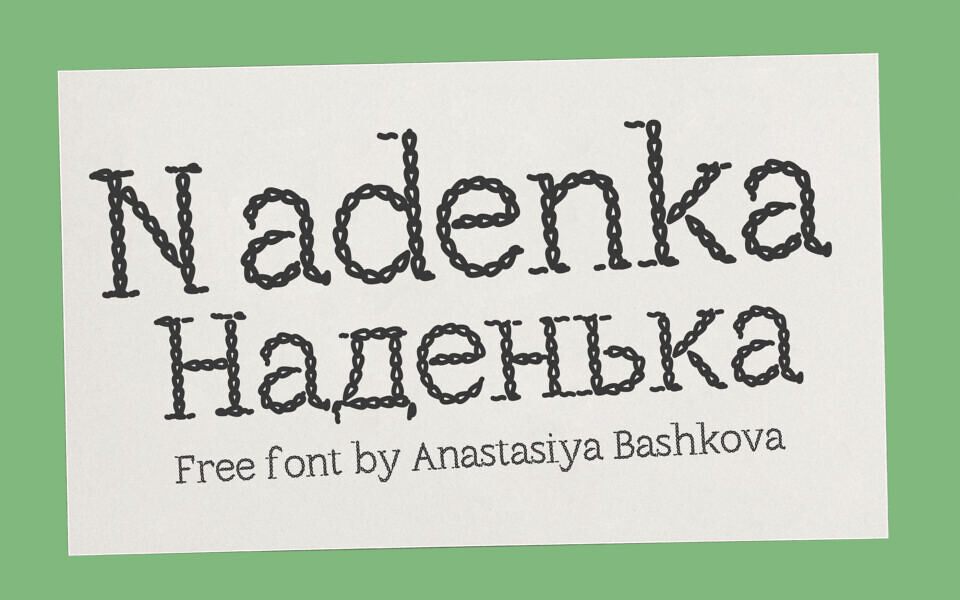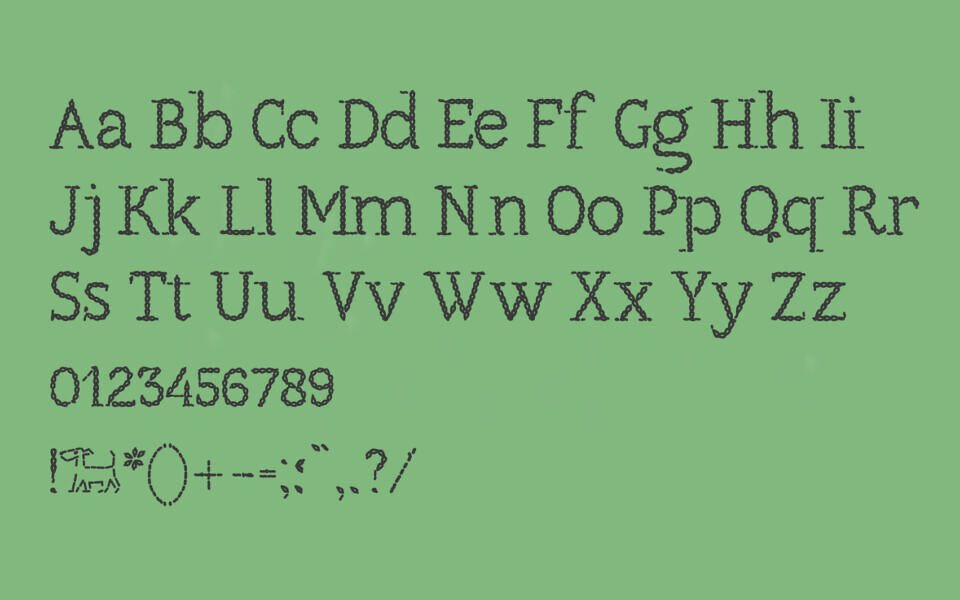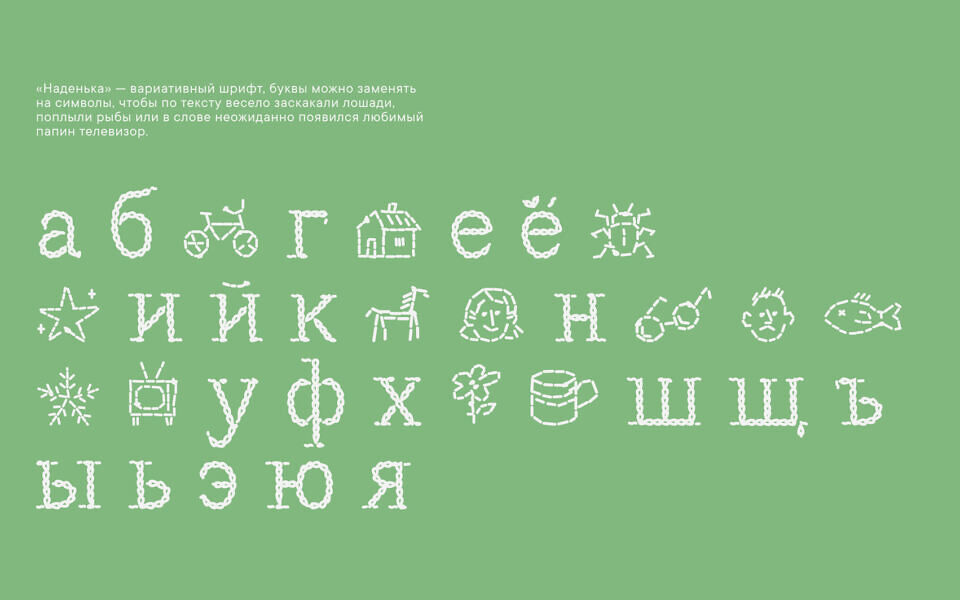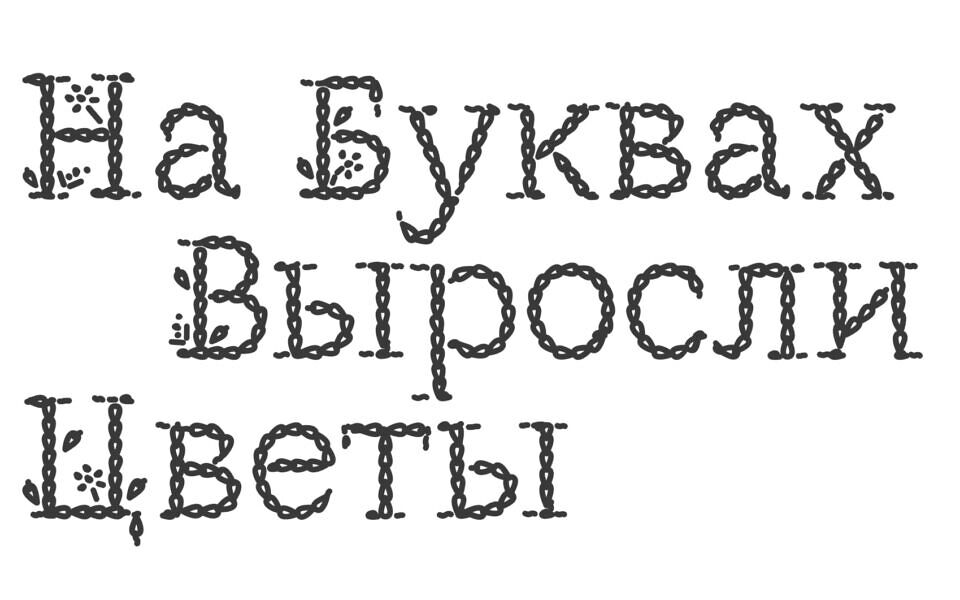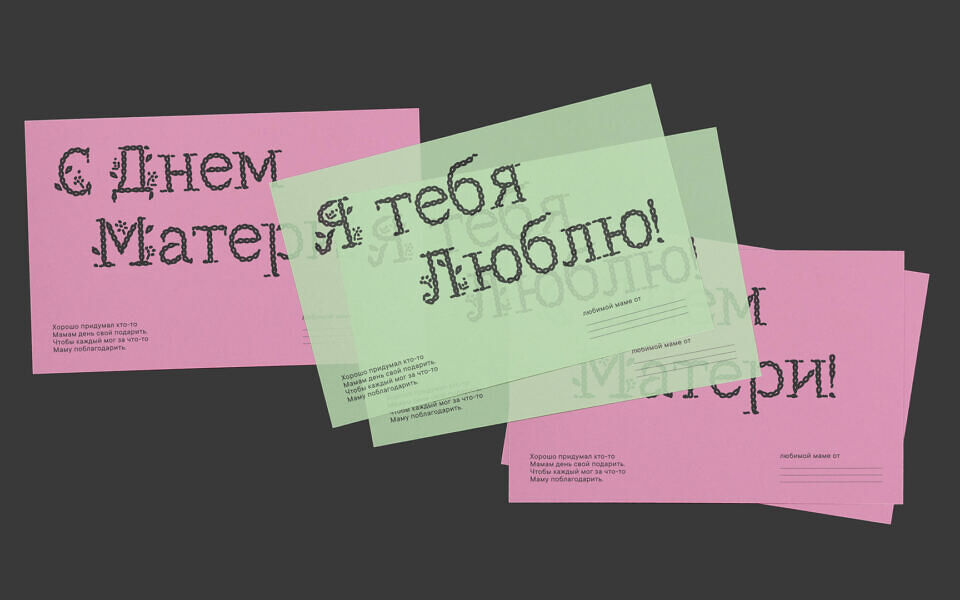
Nadenka is a charming, free hand-drawn variable font by Anastasiya Bashkova, inspired by delicate embroidery and stitching. Its unique aesthetic features letters formed by textured, chain-link outlines, giving it a nostalgic, handcrafted feel.
The font includes a playful set of illustrated glyphs, where characters transform into whimsical symbols like stars, houses, and animals. Perfect for DIY projects, greeting cards, and editorial design, Nadenka supports both Latin and Cyrillic scripts, offering a warm, decorative touch for creative storytelling and personalized branding.